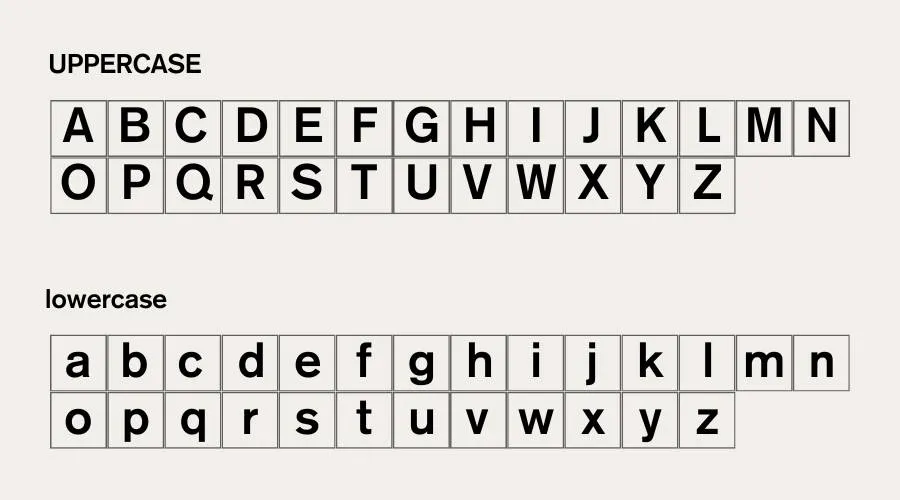
About Akzidenz Grotesk Font
When typographic excellence matters most, Akzidenz Grotesk Font delivers through its thoughtful blend of angled joins and reliability. Specially crafted for advertising headers, it offers the personality and cultural authenticity required for sophisticated design work. Every detail serves a purpose.
The character set showcases thoughtful details like distinctive details alongside functional careful spacing. This proves especially valuable in certification marks, where numerical alignment directly influences results. Particular attention was paid to ear formation and market position during development.